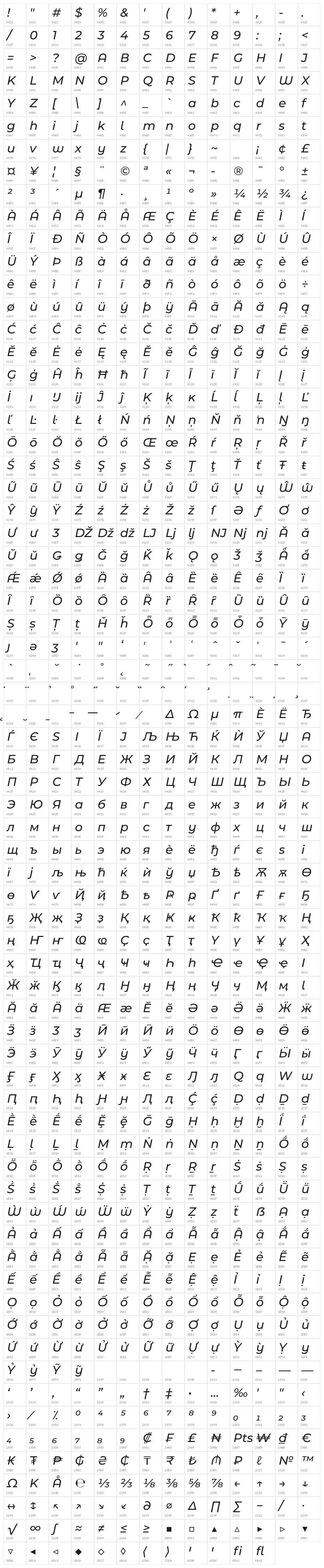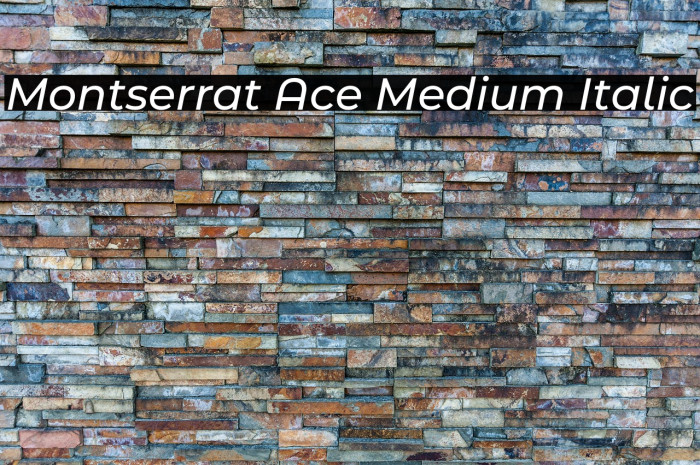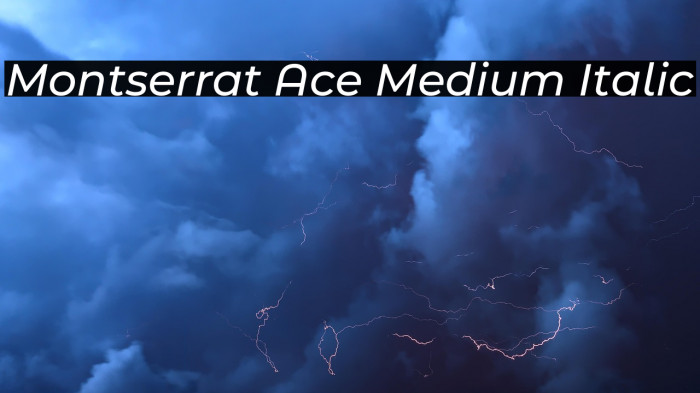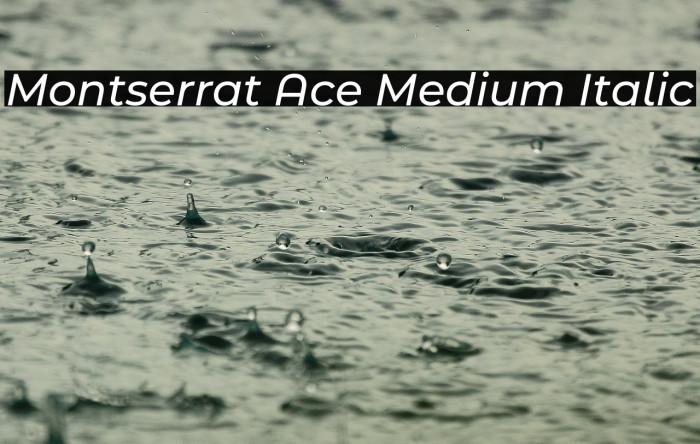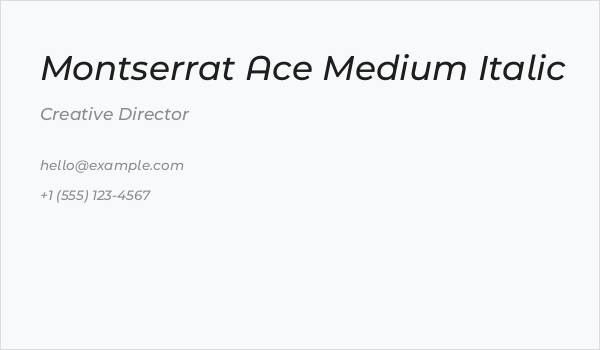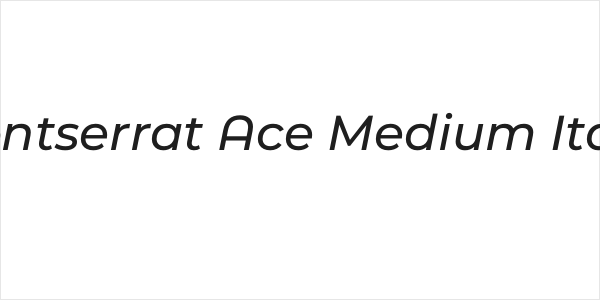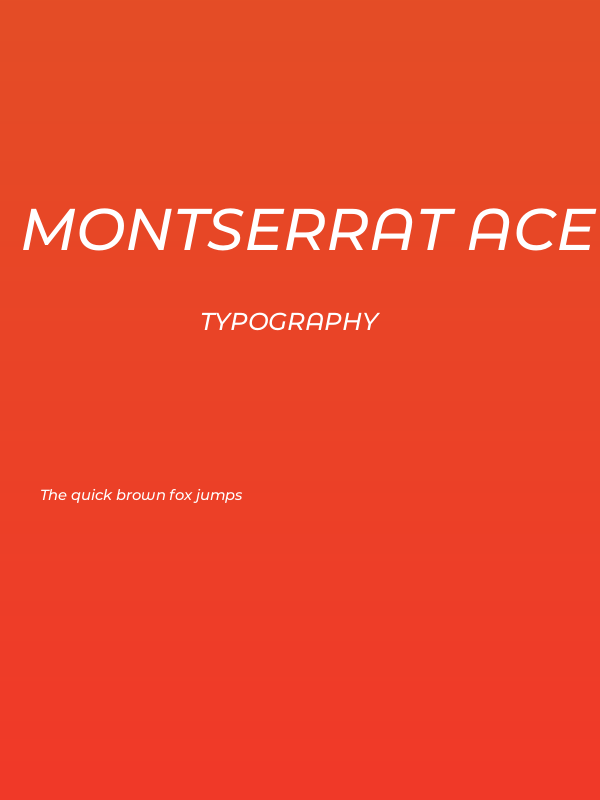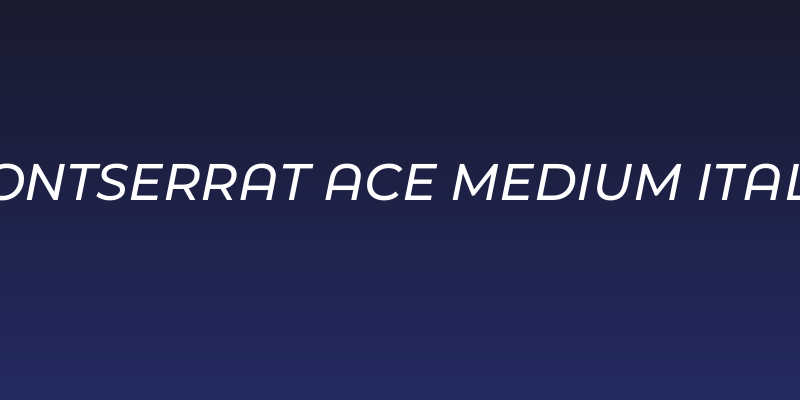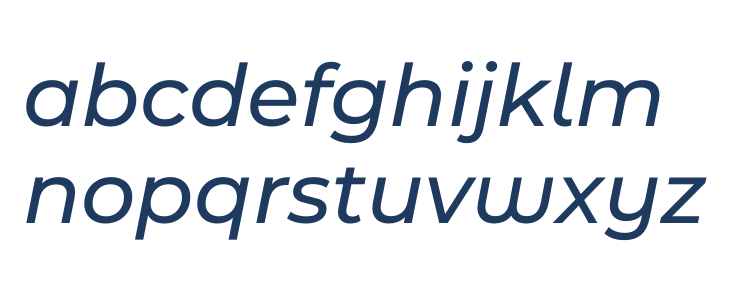
Montserrat Ace Medium Italic Font
Montserrat Ace Medium Italic Description
This typeface features a sleek and modern design with a subtle italic slant, giving it a dynamic and forward-moving appearance. The characters are clean and geometric, with a consistent stroke width that provides a uniform look across all letters and numbers. The font maintains a balanced proportion, making it highly legible and versatile for various applications. Its smooth curves and open counters enhance readability, while the slight italic angle adds a touch of elegance and sophistication. The special characters are well-integrated, maintaining the overall aesthetic of the typeface.